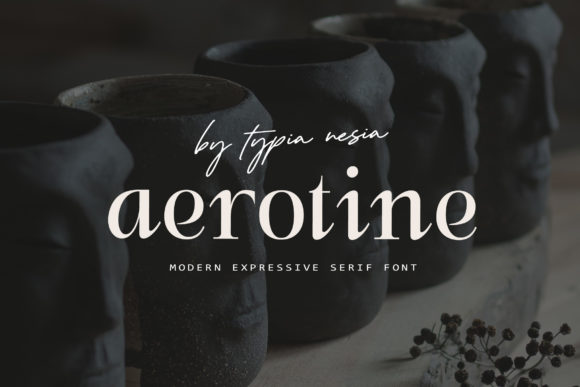
The Designer’s Delight: Aerotine Font
I’ll never forget the time I was working on a project for a client who wanted a bold, yet elegant font to convey their brand’s message. I had spent hours scouring through font libraries, but nothing seemed quite right. That was until I stumbled upon Aerotine – an assertive and cool serif font that instantly caught my attention. In this article, I’ll share my experience with Aerotine, its features, and how you can make the most of it in your designs.
A Personal Review of Aerotine
Aerotine has quickly become a staple in my font library, and for good reason. Here are some things I love about it:
- ✨ Unique character: Aerotine has a distinct personality that sets it apart from other serif fonts.
- ✅ Versatility: It can be used for a wide range of projects, from headings and titles to body text.
- 💡 Legibility: The font is clear and easy to read, even at smaller sizes.
- 🎨 Customizability: With OpenType features and stylistic alternates, you can customize Aerotine to fit your design needs.
While Aerotine is an excellent font, it’s not without its quirks:
- 🤔 Limited italic variations: While Aerotine has italic versions, they’re not as extensive as some other fonts.
- ⚠️ Some glyphs may require manual adjustment: Depending on your design, you may need to tweak certain glyphs for optimal spacing and alignment.
The Story Behind Aerotine
Aerotine was designed with the intention of creating a bold yet refined serif font. Inspired by classic typography and modern design trends, Aerotine’s creator aimed to produce a font that would be both assertive and elegant. The result is a versatile font that can be used in a variety of contexts, from digital designs to print materials.
| Font Name | Aerotine Font |
| Author | Typia Nesia |
| What makes Aerotine unique? | Aerotine’s unique character comes from its blend of boldness and elegance, making it suitable for a wide range of design projects. |
| Is Aerotine suitable for body text? | While Aerotine can be used for body text, it’s primarily designed for headings and titles. For longer-form content, consider pairing it with a complementary font. |